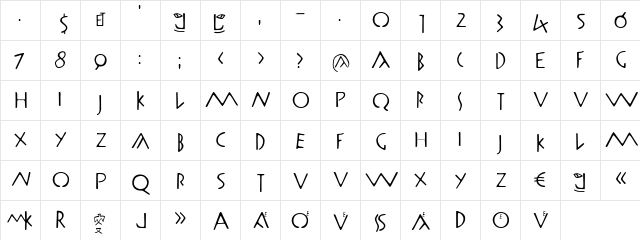
RomaMonumentalBC Regular
Design Context for RomaMonumentalBC Typeface
RomaMonumentalBC offers clean, dependable letterforms without strong stylistic allegiance, making it a practical choice for designers who need flexibility.